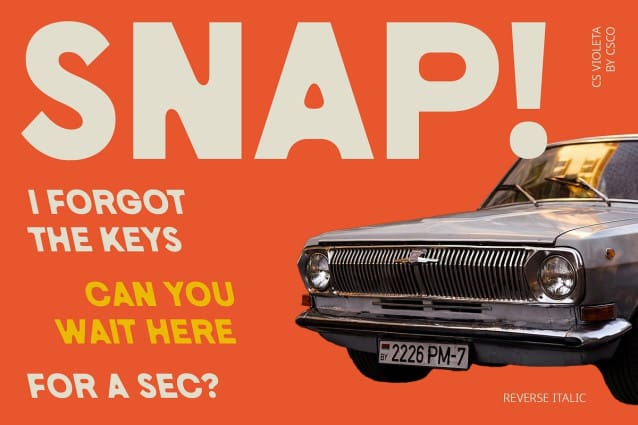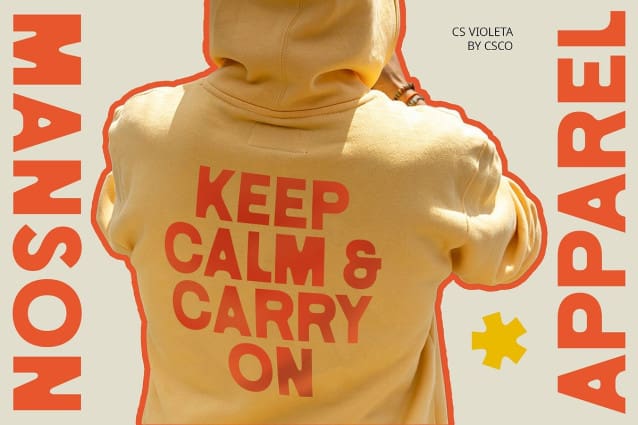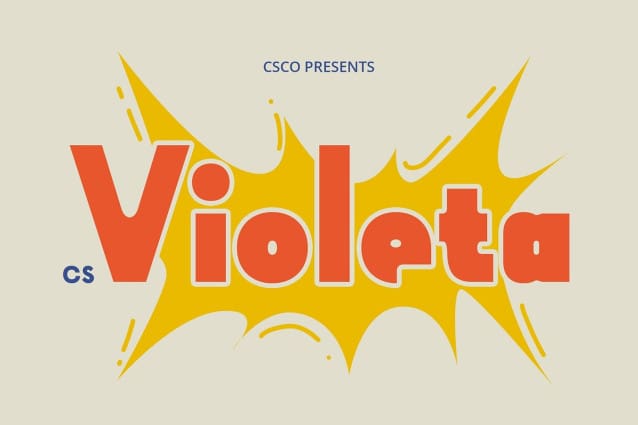
CS Violeta Font
CS Violeta Font is a sans-serif font with a retro style, perfect for designs aiming to convey a classic yet modern and appealing impression. Its vintage-inspired design adds a touch of nostalgia to any project, ensuring your message is both timeless and contemporary.
Ideal for Various Designs Perfect for poster design, branding, packaging, and editorial design, CS Violeta ensures your creations stand out with a classic yet fresh touch. Its retro style enhances the visual appeal, making it an excellent choice for designs that prioritize classic elegance with a modern twist.
Versatile and Timeless Despite its retro aesthetic, CS Violeta remains versatile and timeless. Its sans-serif format makes it suitable for a wide range of projects where a font that combines classic elements with a modern flair is essential for making a statement.
Perfect for Adding a Classic Touch CS Violeta is ideal for projects requiring a font with a classic touch. Whether you’re designing a poster, branding, or packaging, this font will undoubtedly add a distinct and memorable element to your designs.